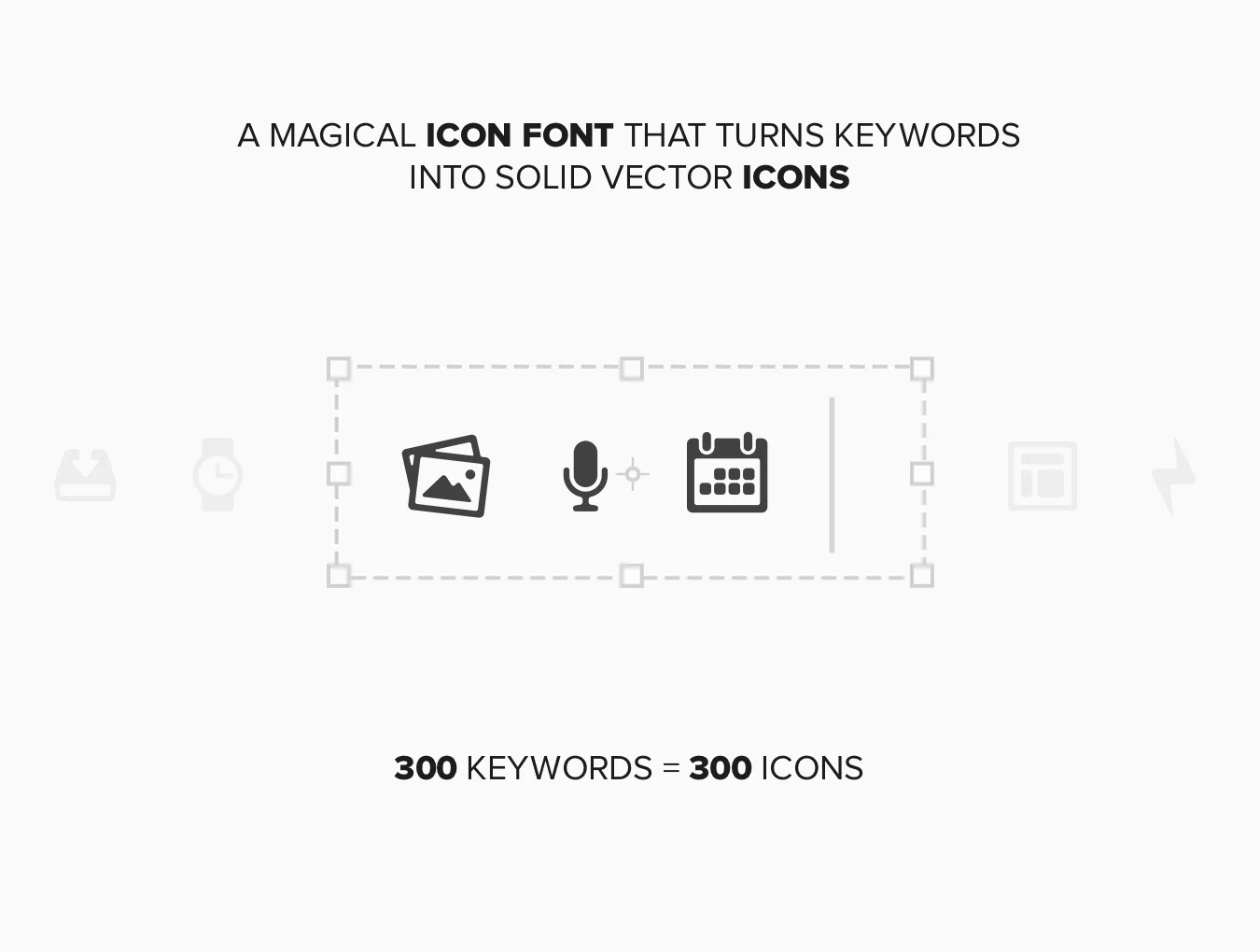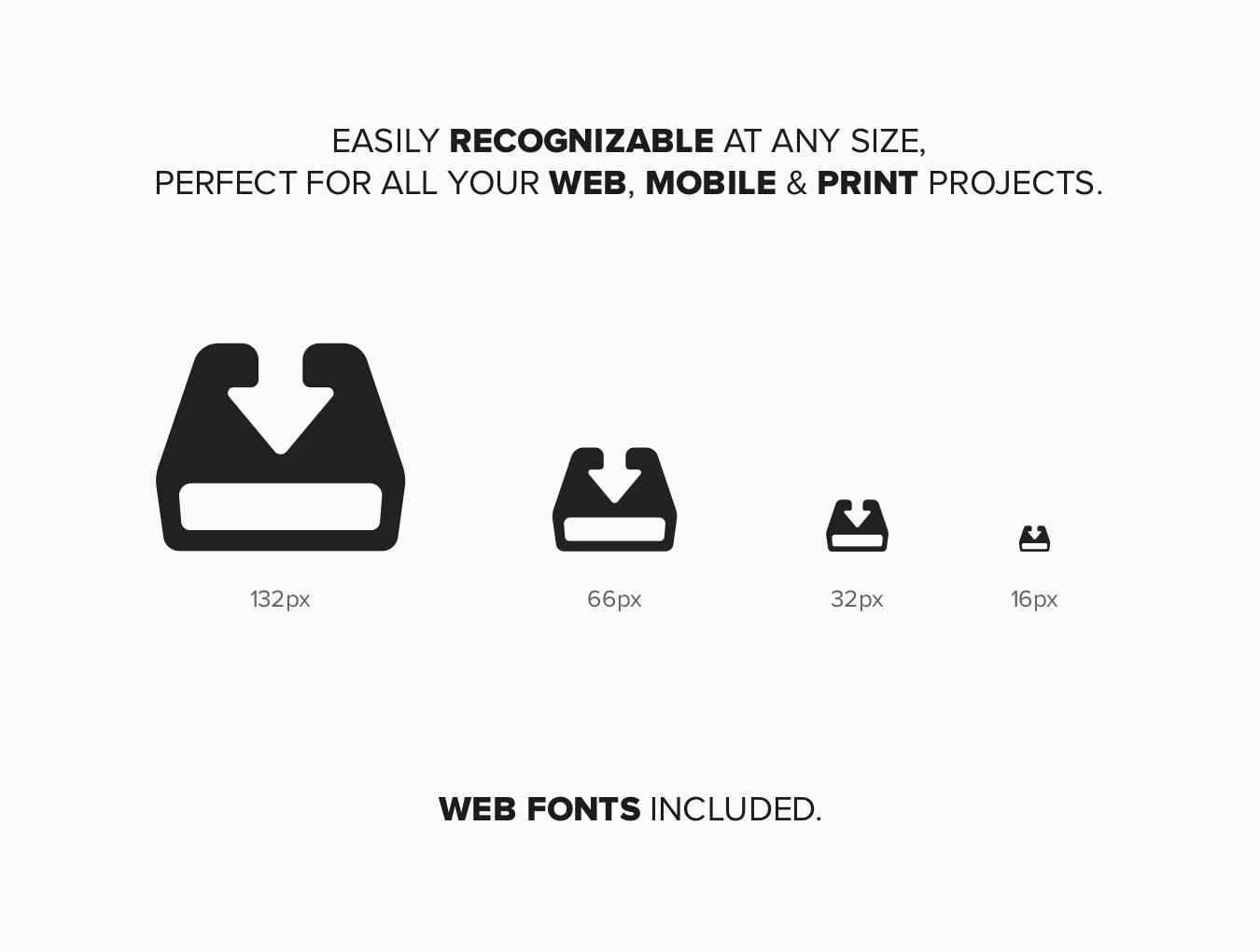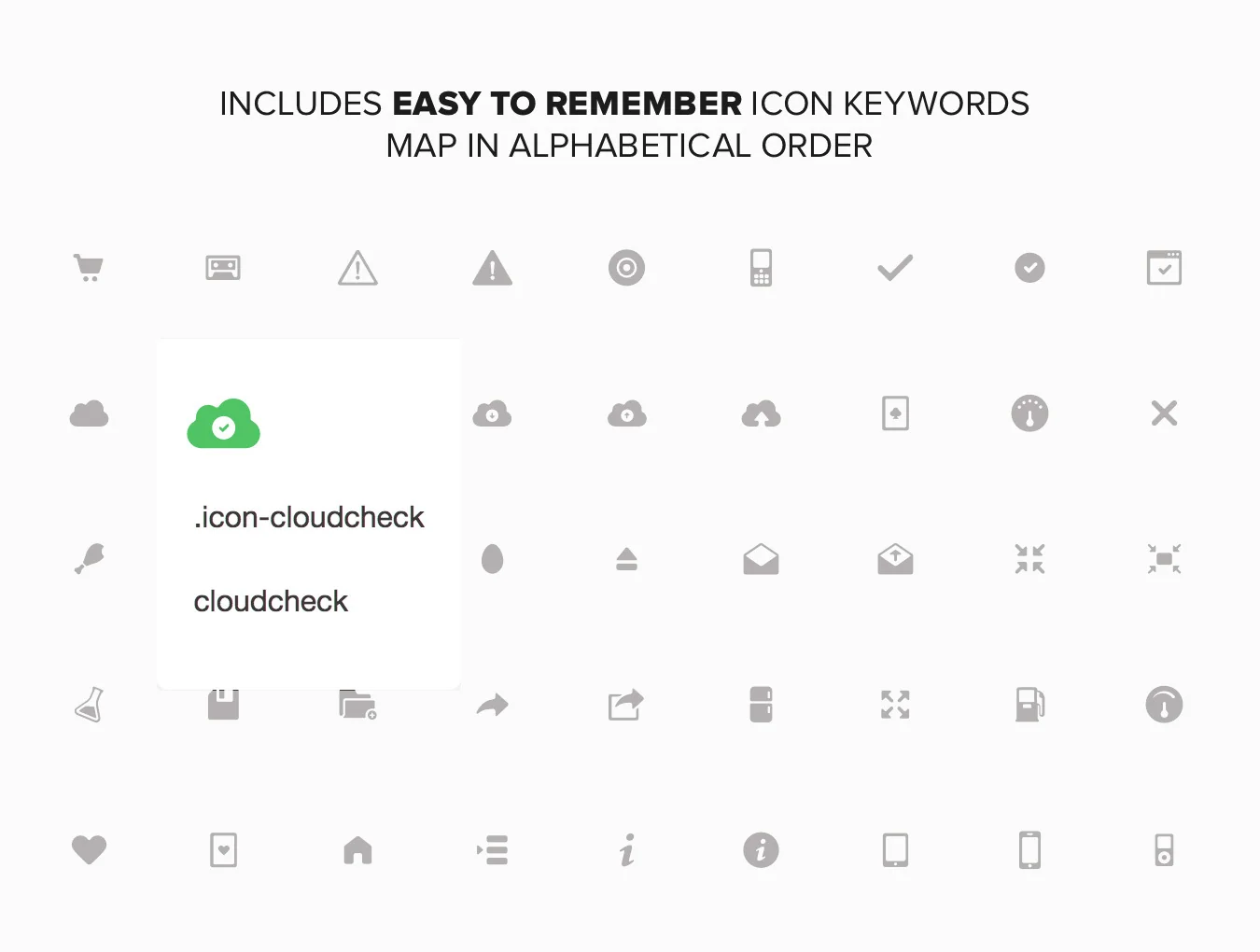
UI Font - Solid
Not your basic alphabet, but a symbol typeface!
UI Font - Solid
Simple to use
Carefully designed
Meaningful glyph and class labels
Over 300 solid icons in an easy-to-embed icon font pack. Works as a desktop or web font. For a limited period, get 50% off the regular $44 price.